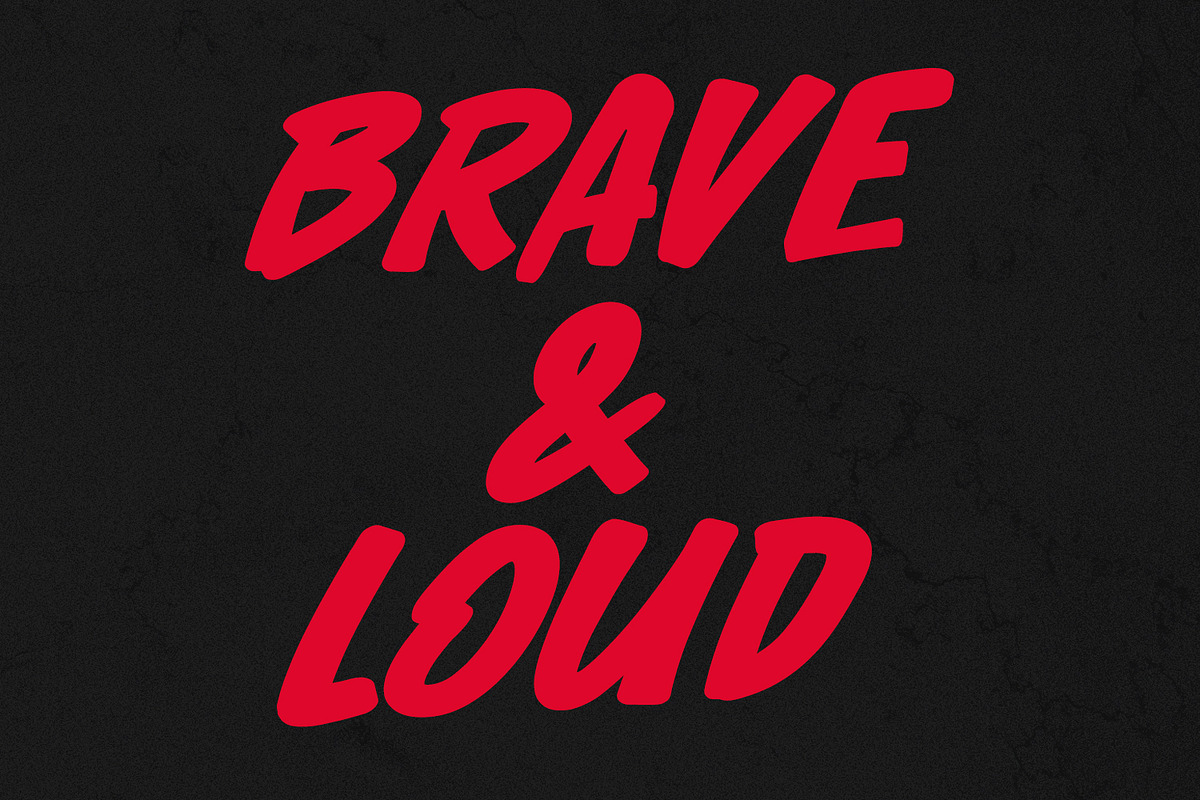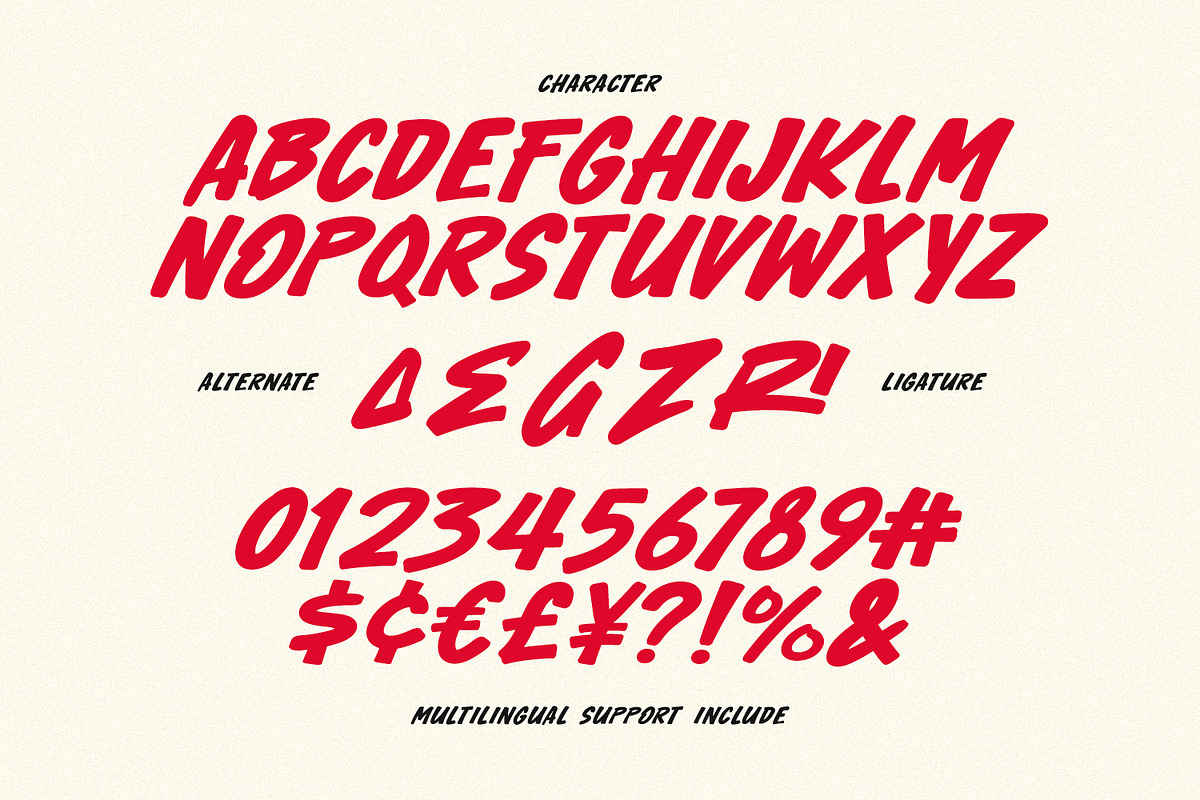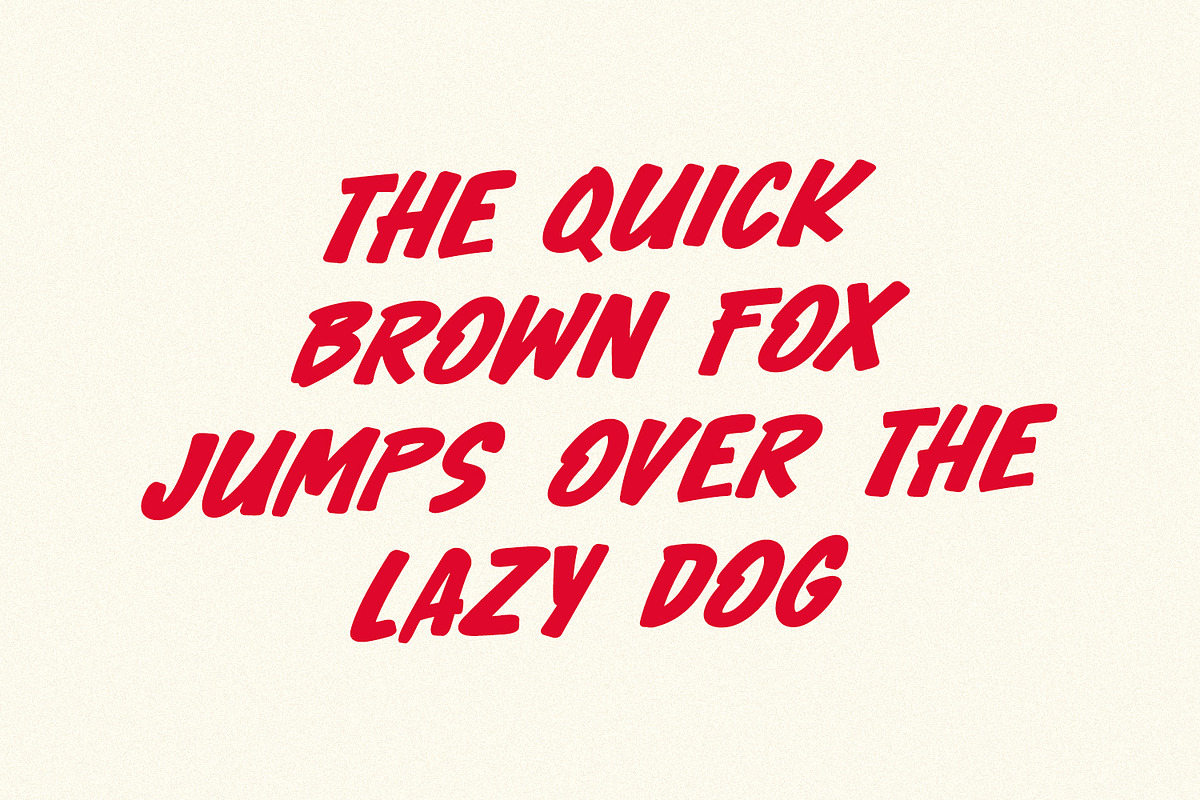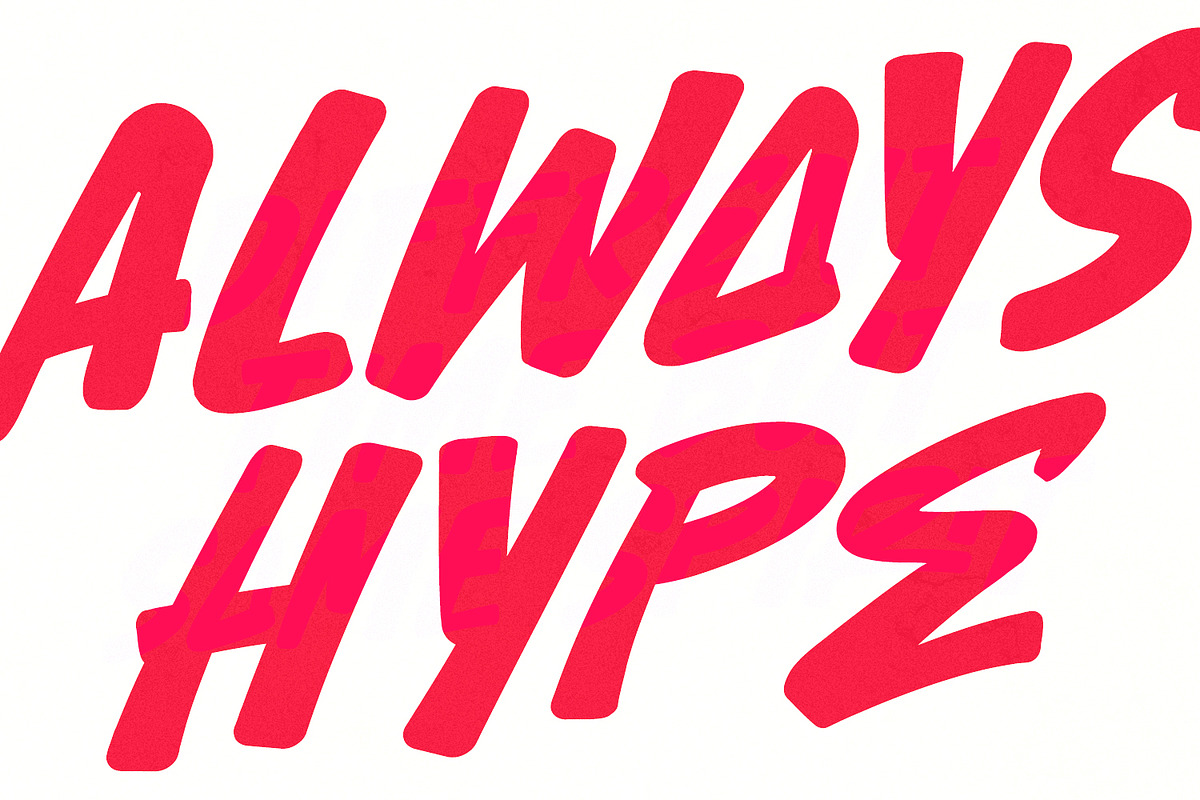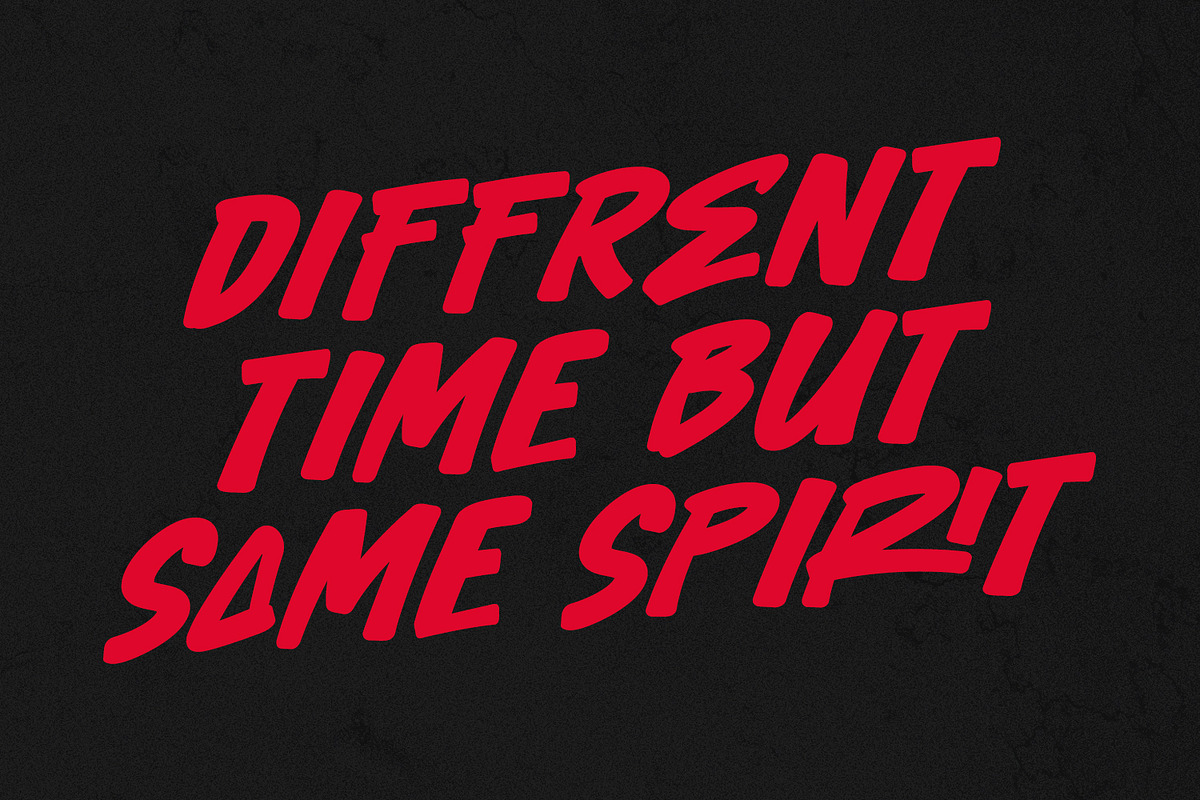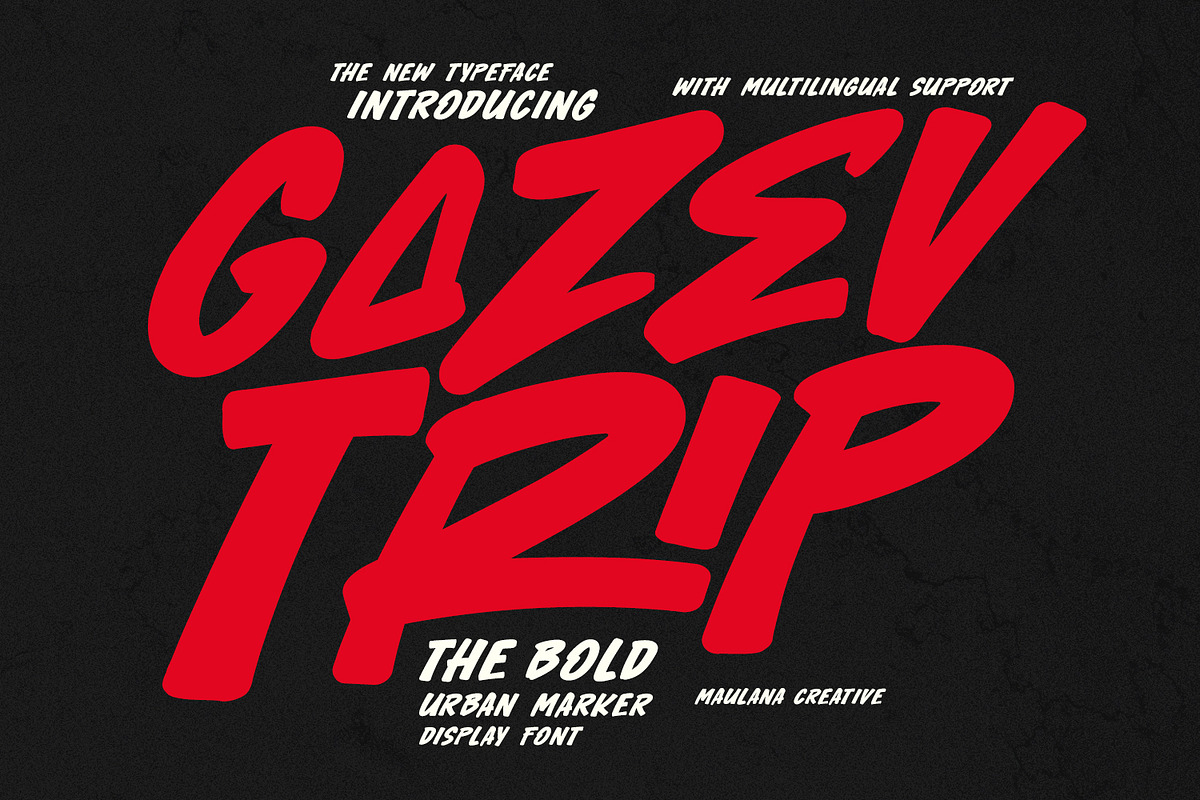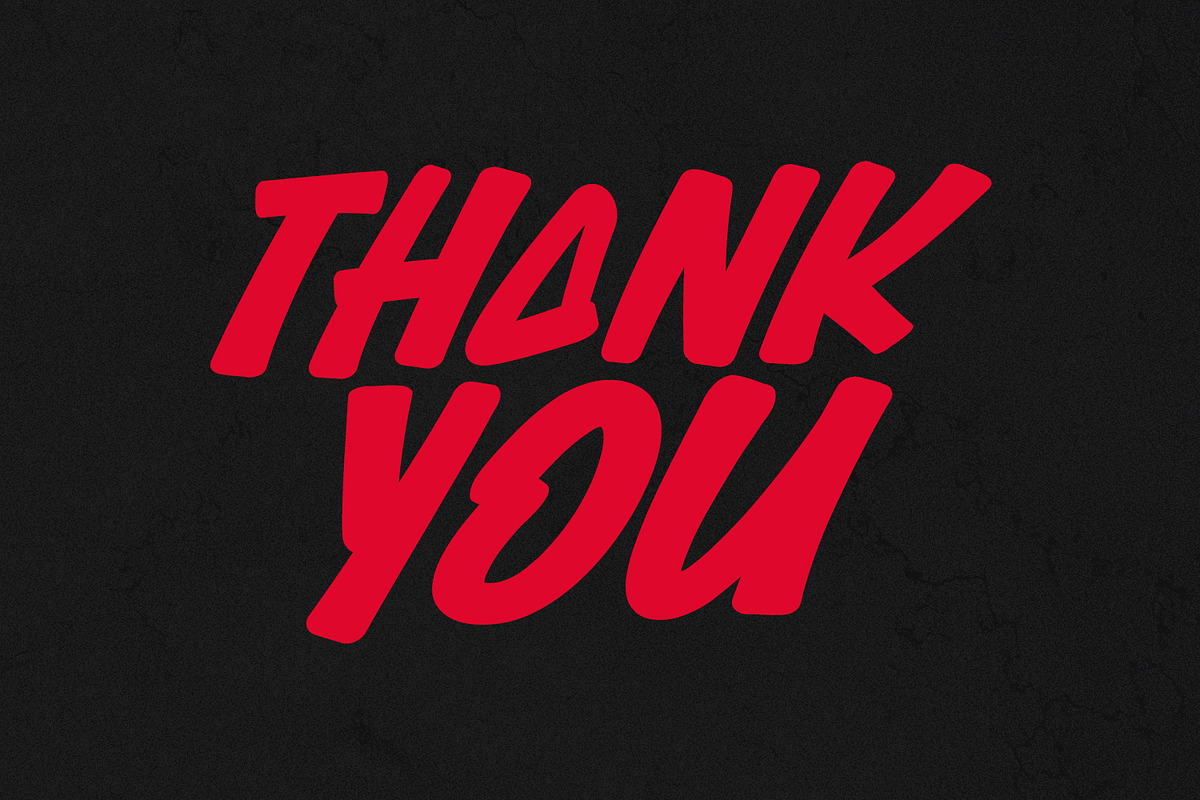
Gazev Trip Bold Urban Marker Display
Gazev Trip is a high-energy, hand-drawn display font that captures the raw essence of street culture and urban art. Designed with thick, confident marker strokes and a natural slant, this typeface brings an aggressive yet rhythmic "hype" to any design. It features a full set of uppercase characters, numerals, and punctuation, along with unique alternates and ligatures to give your text a custom, hand-lettered look. Perfect for streetwear branding, sports posters, music festival flyers, and any project that needs to look "Brave & Loud."
- Ligature and Alternates